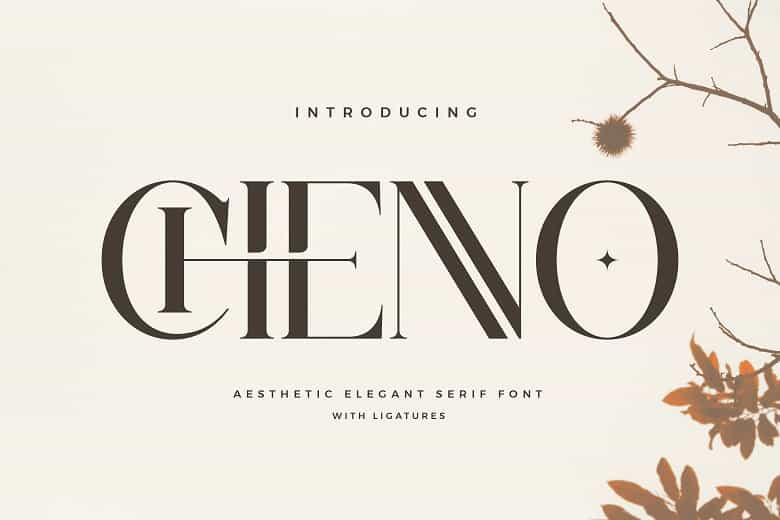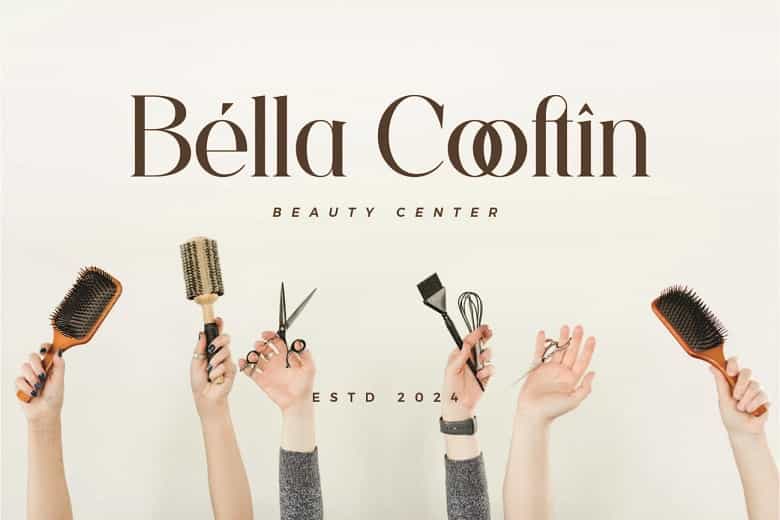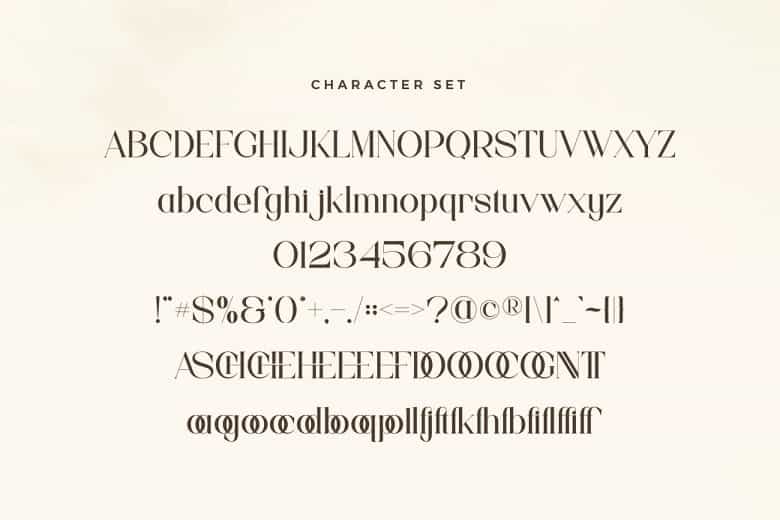
Chenno is a modern serif font that combines the traditional aesthetics of the old-world with the contemporary flair. This makes it suitable for branding, editorial use and luxury design due to its clean serifs and proper lettering. This font gives an aesthetic and elegant look to the projects it is applied to and make the designs look more elegant.